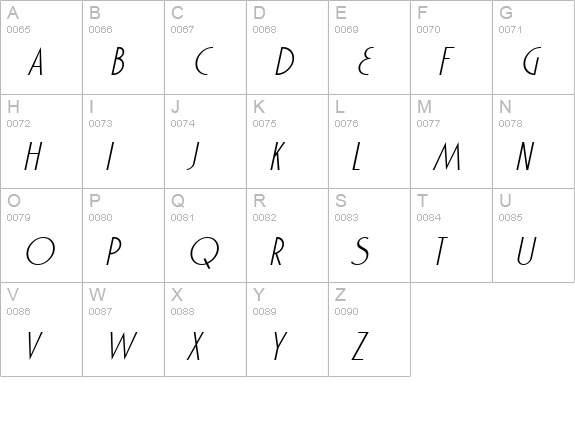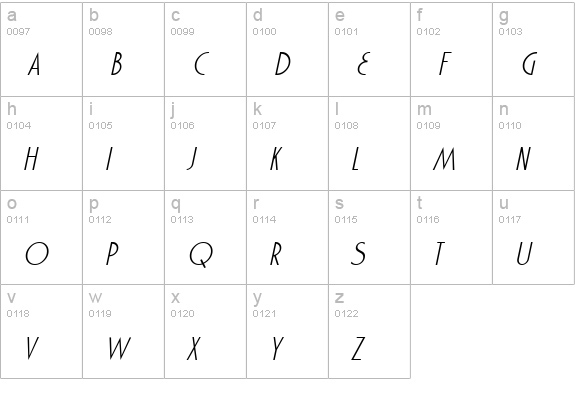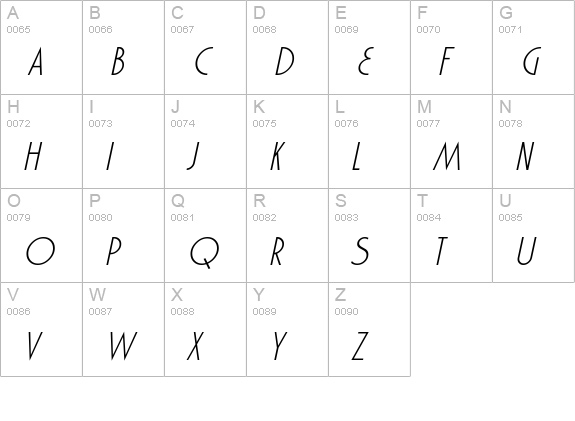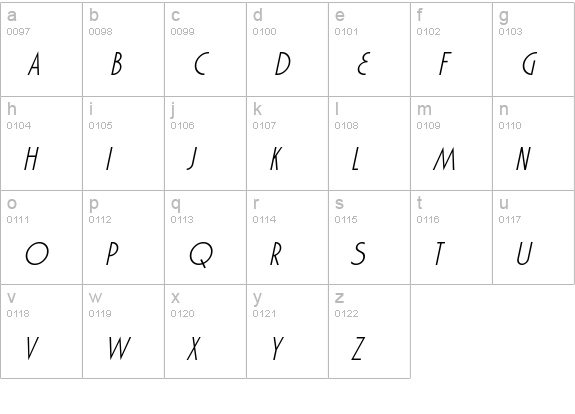
Marquisette BTN Light Oblique is a refined, elegant, italic variant in the Marquisette typeface family \xE2\x80\x94 well suited to elegant body text, refined sub-headings, and luxury branding.
Marquisette BTN Light Oblique is a captivating and elegant font that effortlessly combines sophistication with a touch of playfulness. With its gracefully slanted letterforms, this font exudes a sense of charm and uniqueness, making it perfect for a variety of design projects. The slender and delicate strokes of Marquisette BTN Light Oblique captivate the eye, while the subtle slant adds a sense of dynamism and movement. Its clean and legible design ensures that your message is conveyed clearly and effortlessly, making it an excellent choice for both print and digital media. This font is freely available to download at FontsMarket.com, allowing designers and creatives to access its beauty and versatility without any restrictions. Whether you're working on a professional project or simply want to add a touch of elegance to your personal creations, Marquisette BTN Light Oblique is the perfect choice. With its versatility and timeless appeal, this font is ideal for a wide range of applications. From elegant wedding invitations to sophisticated brand identities, Marquisette BTN Light Oblique effortlessly enhances any design with its refined aesthetic. Its versatility extends to various design styles, from classic and traditional to modern and contemporary. The smooth curves and unique slant of Marquisette BTN Light Oblique create a harmonious balance between elegance and innovation. This font adds a touch of sophistication to any design, while its subtle quirks and unconventional letterforms inject a sense of creativity and individuality. Overall, Marquisette BTN Light Oblique is a captivating font that effortlessly combines elegance with a touch of playfulness. Its freely available download at FontsMarket.com allows designers to explore its beauty and versatility without any restrictions. Whether you're working on a professional project or simply want to add a touch of elegance to your personal creations, Marquisette BTN Light Oblique is the perfect choice.